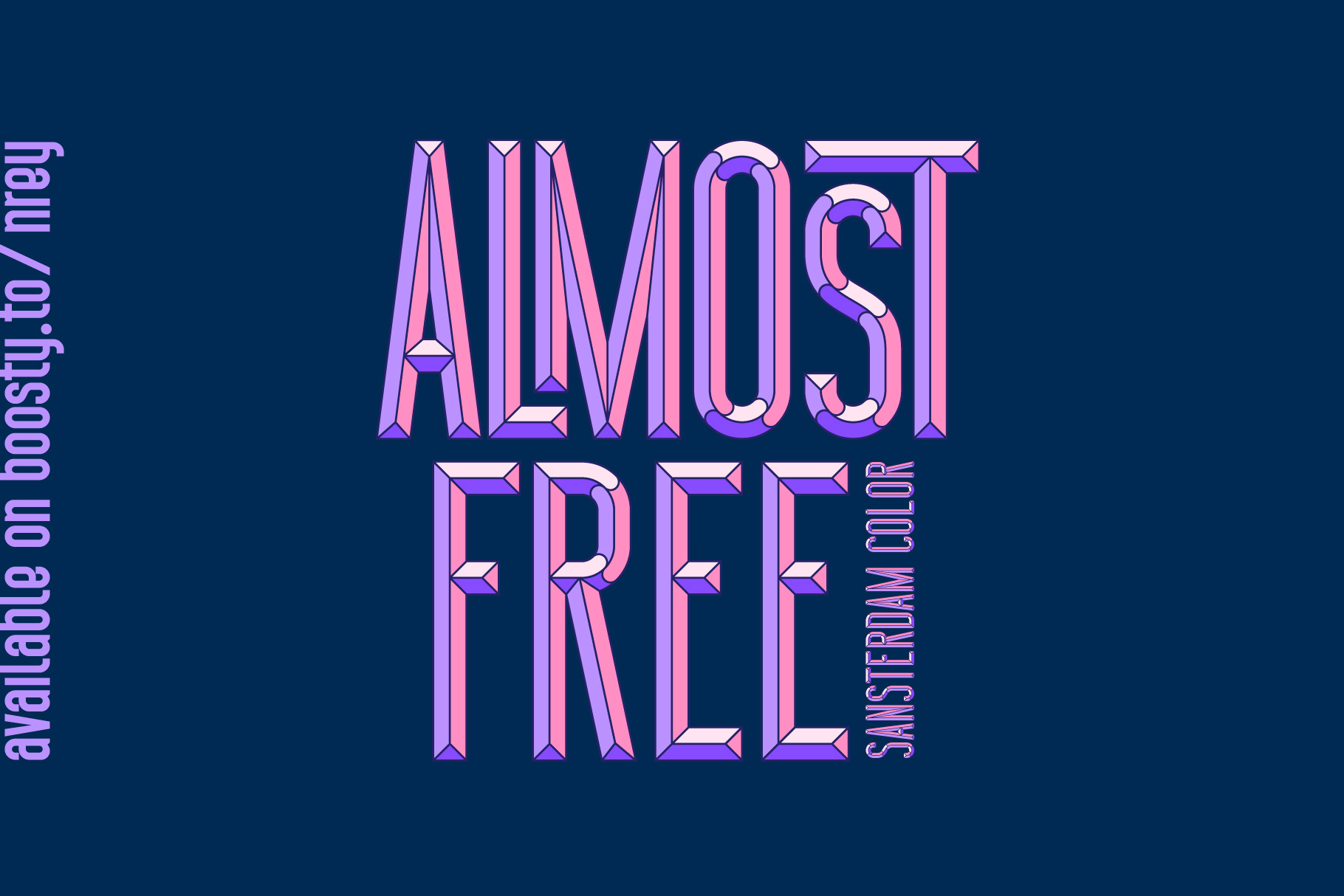
Introdusing Sansterdam Color Font is a display font of modern geometric condenced grotesque font family.
- Sansterdam Color Y - yellow 3d font
- Sansterdam Color R - red 3d font
- Sansterdam Color N - additional casual monochrome font
Font looks amazing as alone words and as full text blocks. Also it good for bright captions and logos.